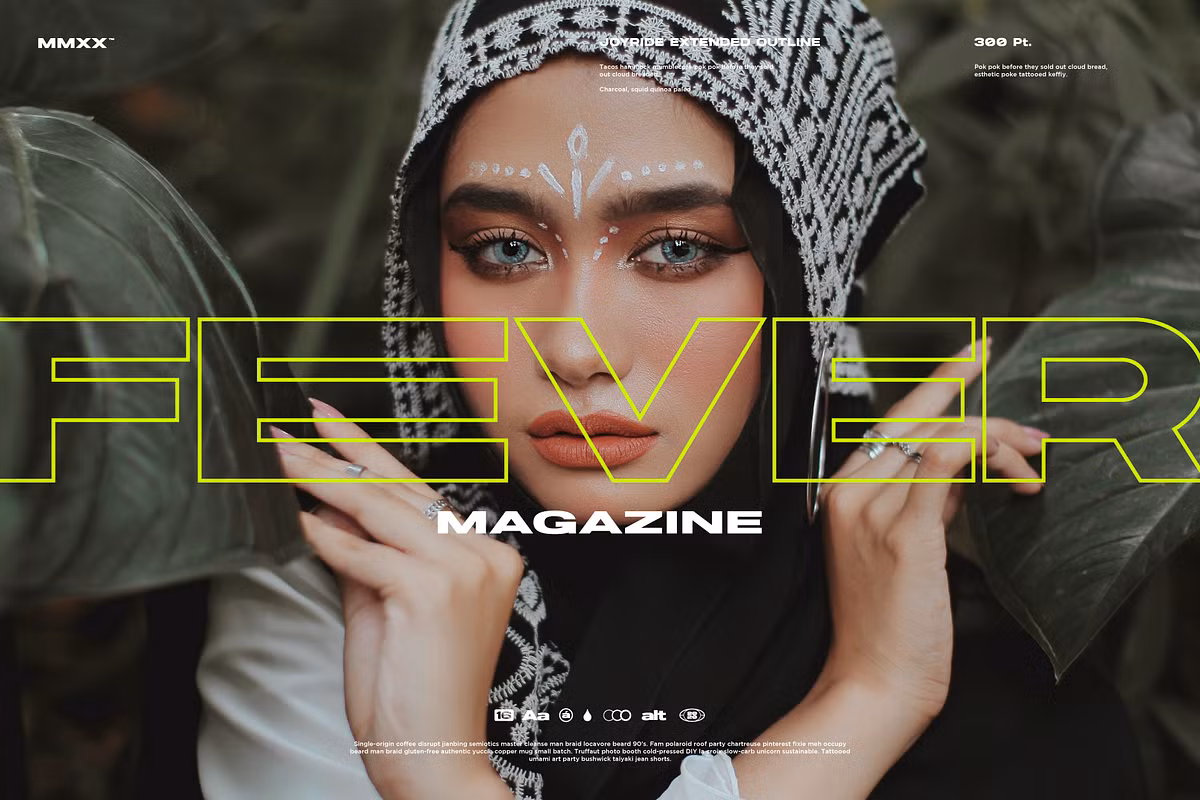
Joyride Extended Typeface
If you want to raise your design projects with a flexible typeface, try the Joyride Extended Typeface. The Joyride Extended Typeface works well. The Joyride Extended Typeface is not another font; the Joyride Extended Typeface is a tool that can help you make visuals and interesting content. This article will show the features that make the Joyride Extended Typeface stand out and how to use the Joyride Extended Typeface well. Why the Joyride Extended Typeface should be your pick for the next design project.
I am curious. I wonder what makes the Joyride stand out?
Joyride Extended Typeface example showcasing its design features
Example of Joyride Extended Typeface.
Exploring the Typeface Features
Joyride is an extended variable width sans serif typeface. I find Joyride gives me flexibility. Joyride comes with 16 fonts, in the weights and styles. Joyride lets me express my creativity freely. Here are the features:
• 16 Fonts: The 16 Fonts family has weights from light to bold. The 16 Fonts family gives options for any design need.
• Over three hundred alternate glyphs: I use the characters to change my text. The alternate characters let me get the look.
• Widths: I use Widths to change the width of each letter. Variable Widths adds depth, making my typography feel unique.
• Multilingual Support: Joyride includes characters for languages. Joyride is a choice for the projects.
Showcasing alternate glyphs of Joyride Typeface
Alternate glyphs available in the Joyride Typeface.
Comprehensive Glyph Library
I have used the glyphs in projects. There are more than 4000 glyphs in both OTF and TTF formats. You can find a glyph for any occasion. The library covers characters and also includes special symbols, accents, and punctuation. The broad range at your fingertips keeps your designs fresh.
Customization Opportunities
The 300 alternate glyphs let you change the look of your text. The feature works well for branding projects because a clear visual identity is important. When I play with the glyphs, I see how the text can feel fresh for the audience. The glyphs let you try looks and find combos that fit the audience.
Application of Joyride Typeface in print media
Using Joyride for print media designs.
Practical Applications for Designers
Are you wondering how to add Joyride to your projects? I have used Joyride in various projects. Here are some tips on how to use Joyride:
• Branding: I use Joyride. Joyride lets me design a logo or brand materials that stand out from the competition.
• Web Design: Add Joyride to the website for the headers, menus, and calls to action. Joyride makes user engagement better. I have seen Joyride work well on my site.
• Print Media: From brochures to posters, Joyride adds a look to the print designs. Joyride makes the designs feel fresh.
• Social Media Graphics: The Social Media Graphics catch the eye on the platforms. The Social Media Graphics use the typeface features to make each post stand out. The Social Media Graphics help the audience notice the design.
Common Questions About Joyride Typeface
I want to know if I can use Joyride for projects.
I have used Joyride. Joyride works for various projects. Joyride is an investment for designers.
Conclusion: Transform Your Designs with Joyride
I have used the Joyride Extended Typeface. I find the Joyride Extended Typeface works well. To sum up, the Joyride Extended Typeface gives a mix of flexibility, custom options, and style. The Joyride Extended Typeface is a tool for any designer. The Joyride Extended Typeface has weights, many styles, and many glyphs. The Joyride Extended Typeface lets designers make designs that look good and are different for the brand.